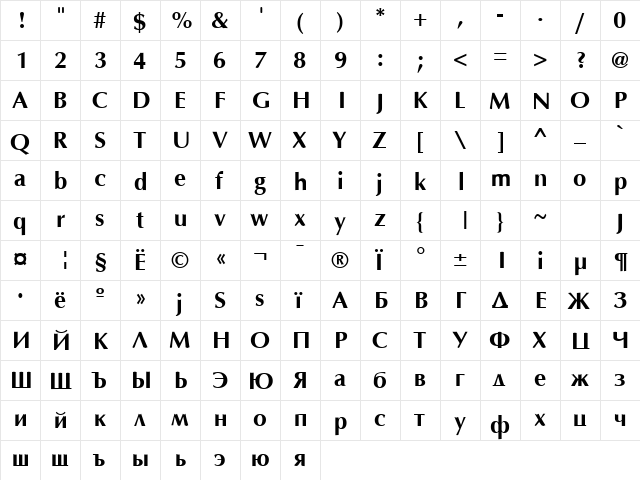
AGOpus Bold
Design Context for AGOpus Typeface
AGOpus is a composed and adaptable typeface that performs quietly and consistently across a wide range of design contexts. Its bold stroke weight gives it real presence on the page.